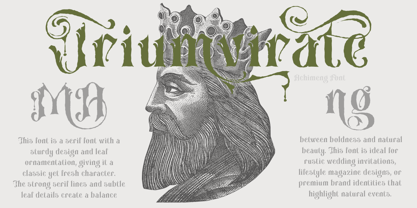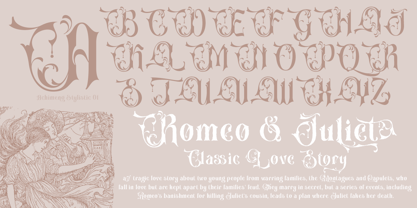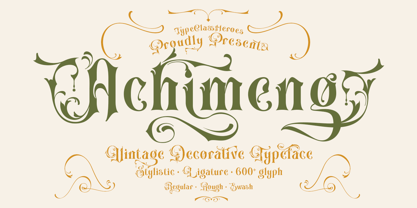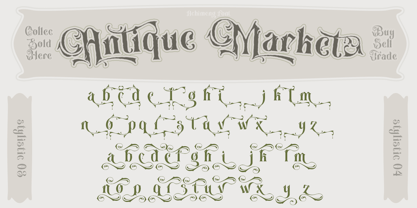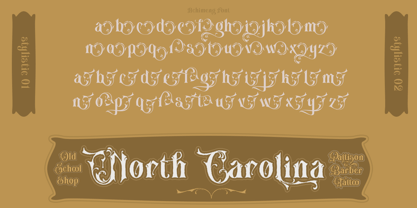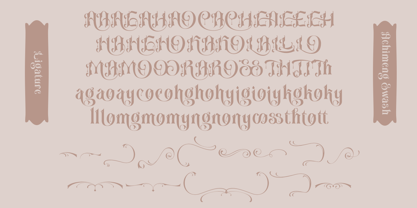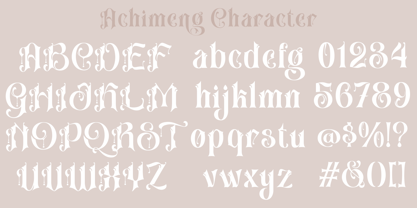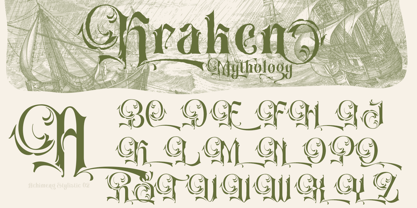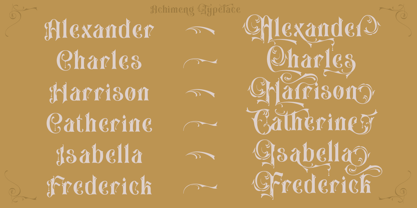
Achimeng
by TypeClassHeroes
The Achimeng Font Family was designed by Suandana ipandemade and published by TypeClassHeroes. Achimeng contains 2 styles and family package options.
Introducing Achimeng, a decorative serif font that combines a sturdy design with elegant leaf ornamentation, resulting in a character that is both classic and fresh. The strong lines paired with subtle leaf details create a harmonious balance between boldness and natural beauty. Available in both regular and rough versions, Achimeng features unique ornament swashes that emphasize its connection to nature. This versatile font is perfect for a wide range of formal applications, including invitations, labels, restaurant menus, logos, makeup branding, stationery, novels, magazines, books, greeting and wedding cards, packaging, and various advertising purposes. Whether you're designing for digital platforms or printed materials, Achimeng is an ideal choice to elevate your projects.